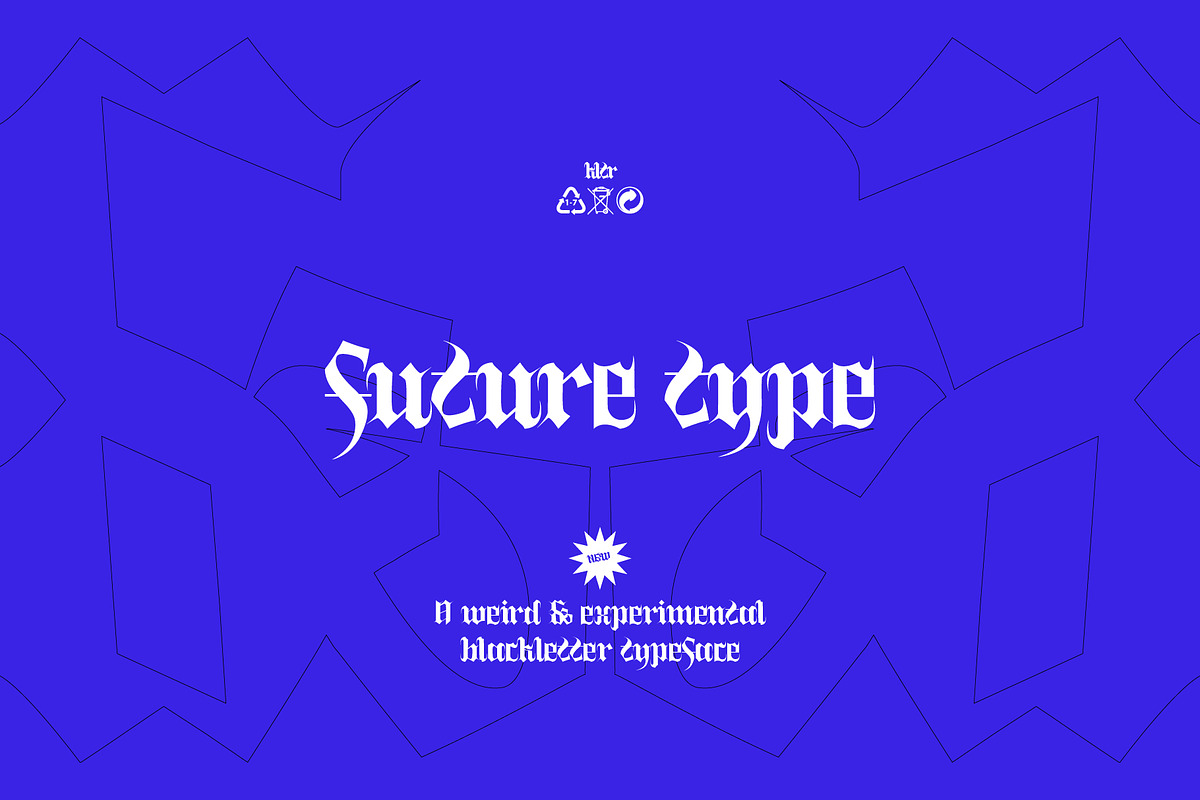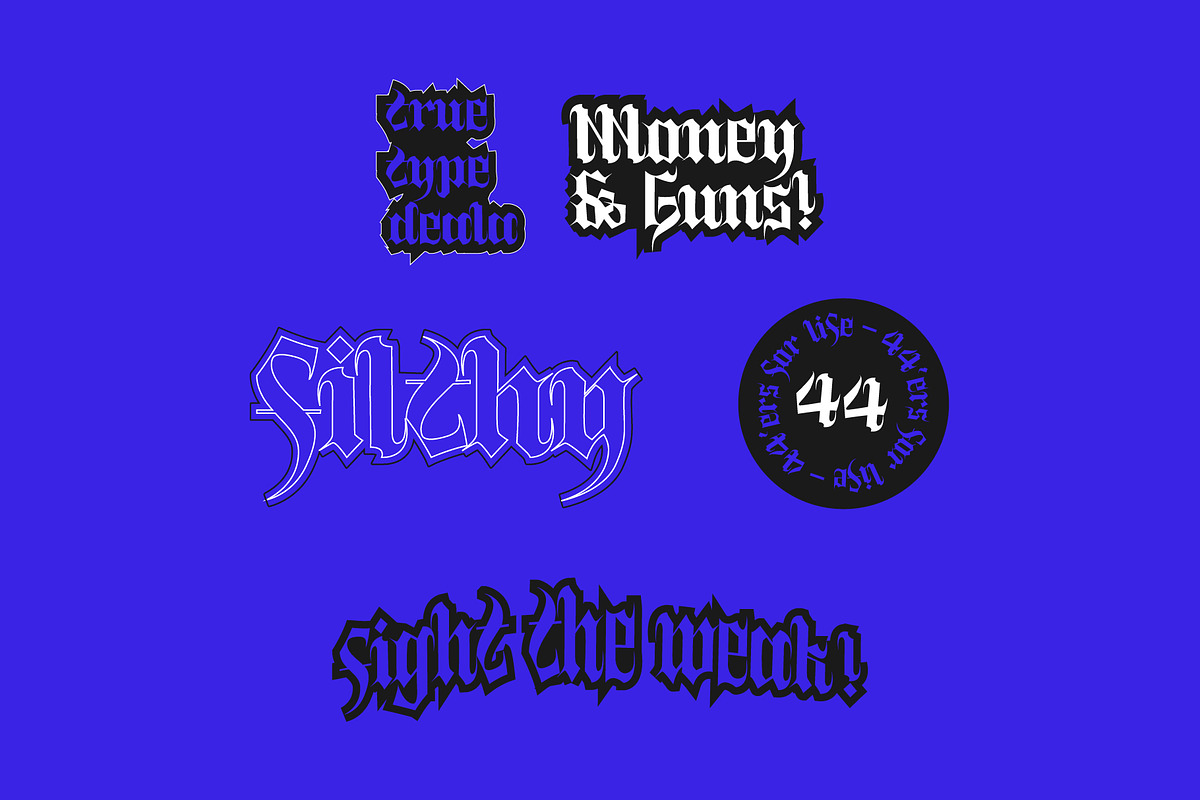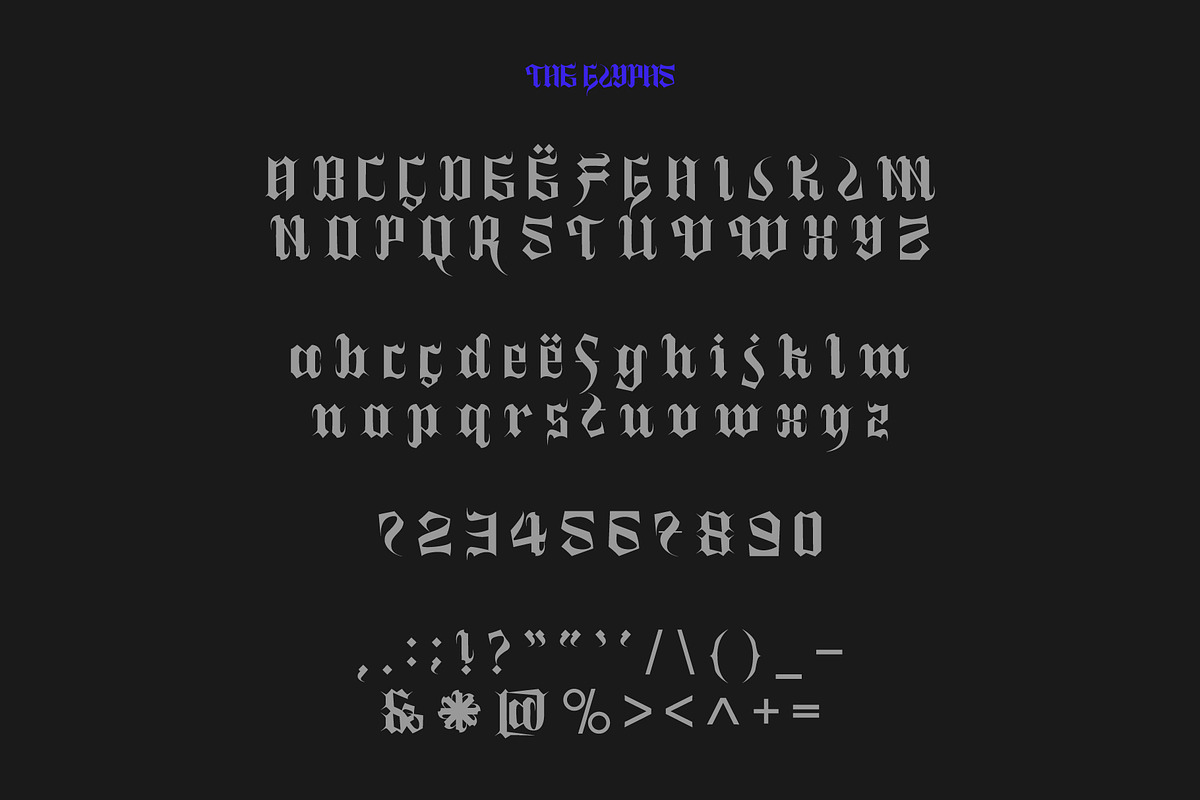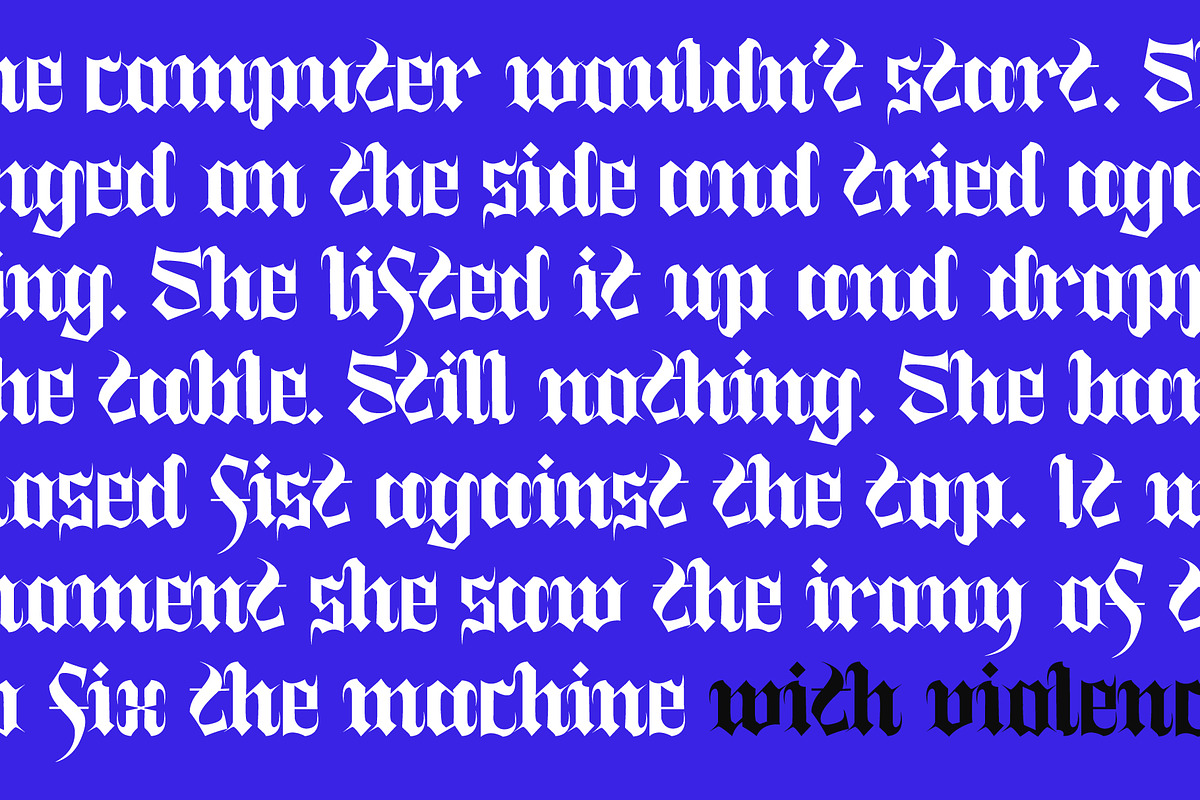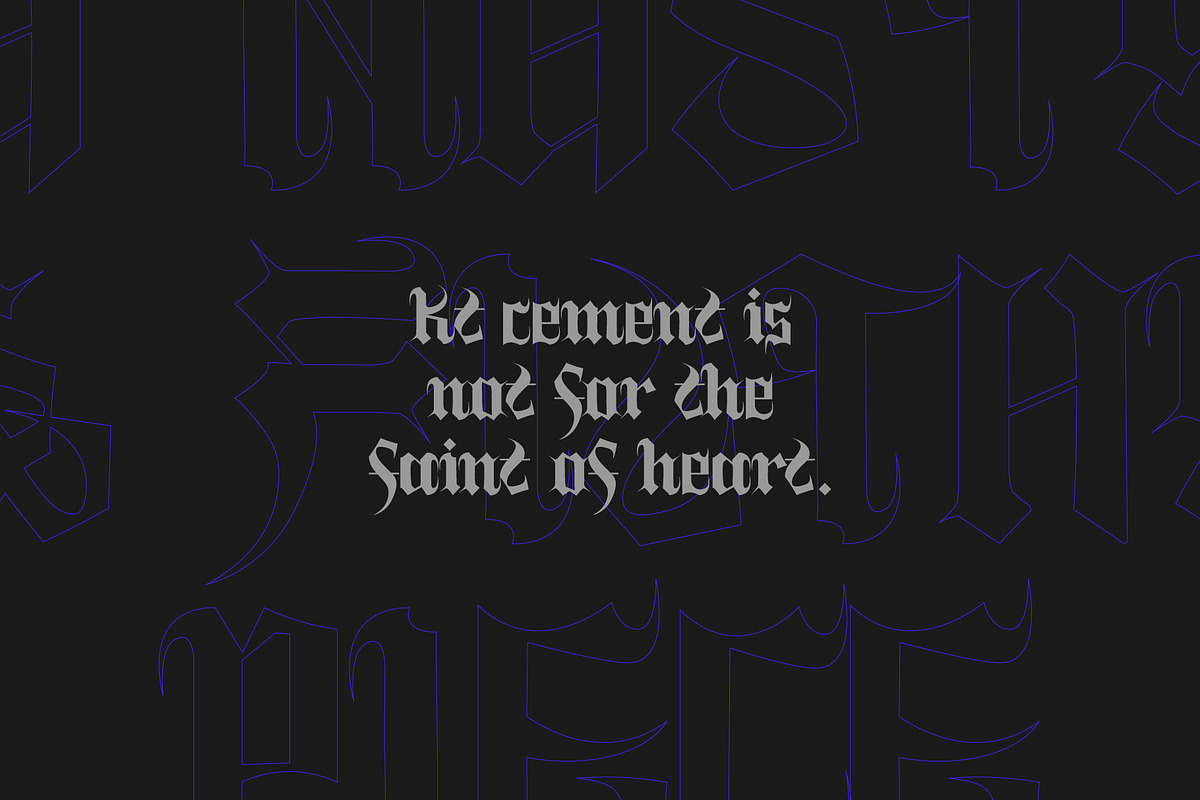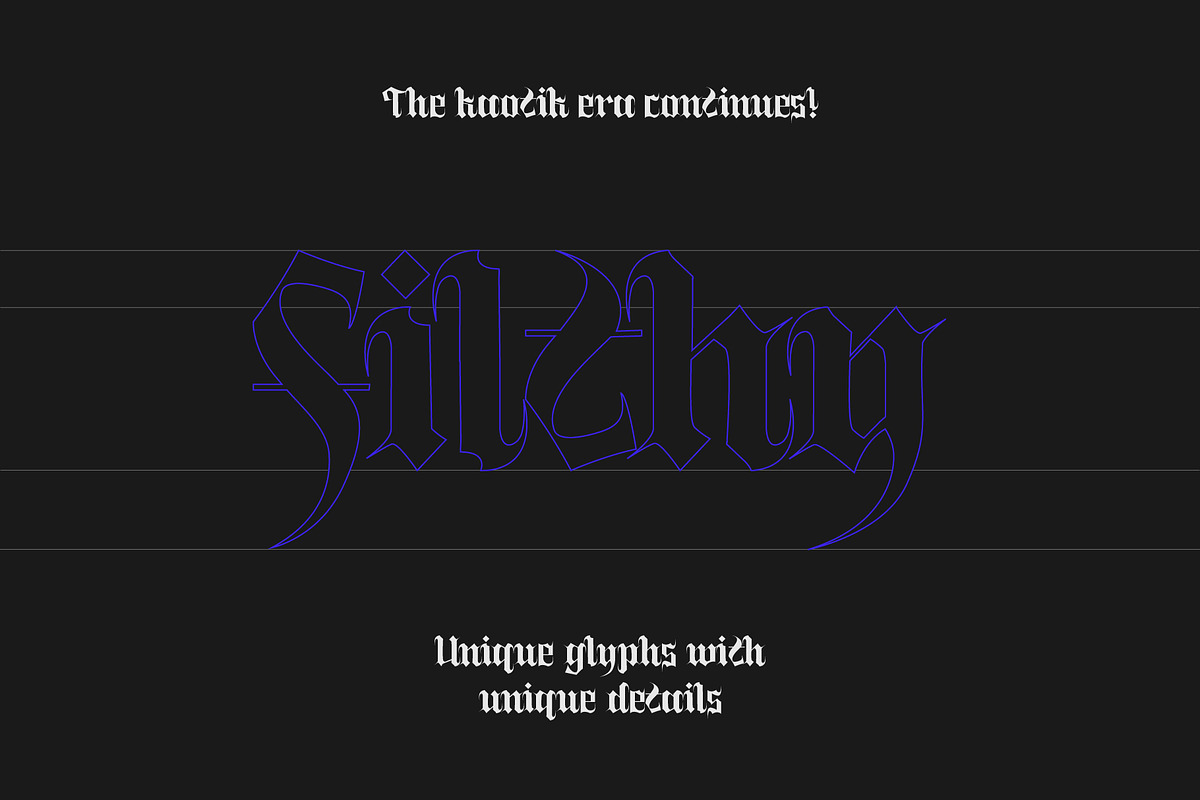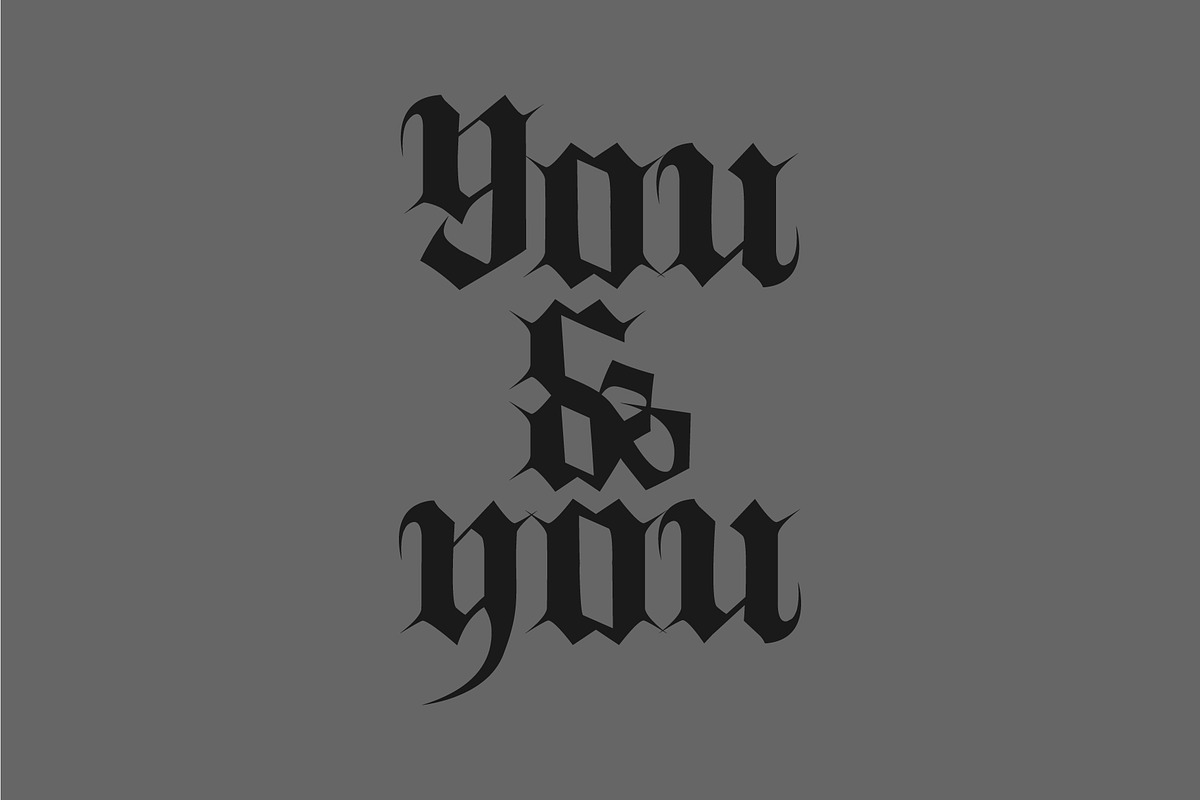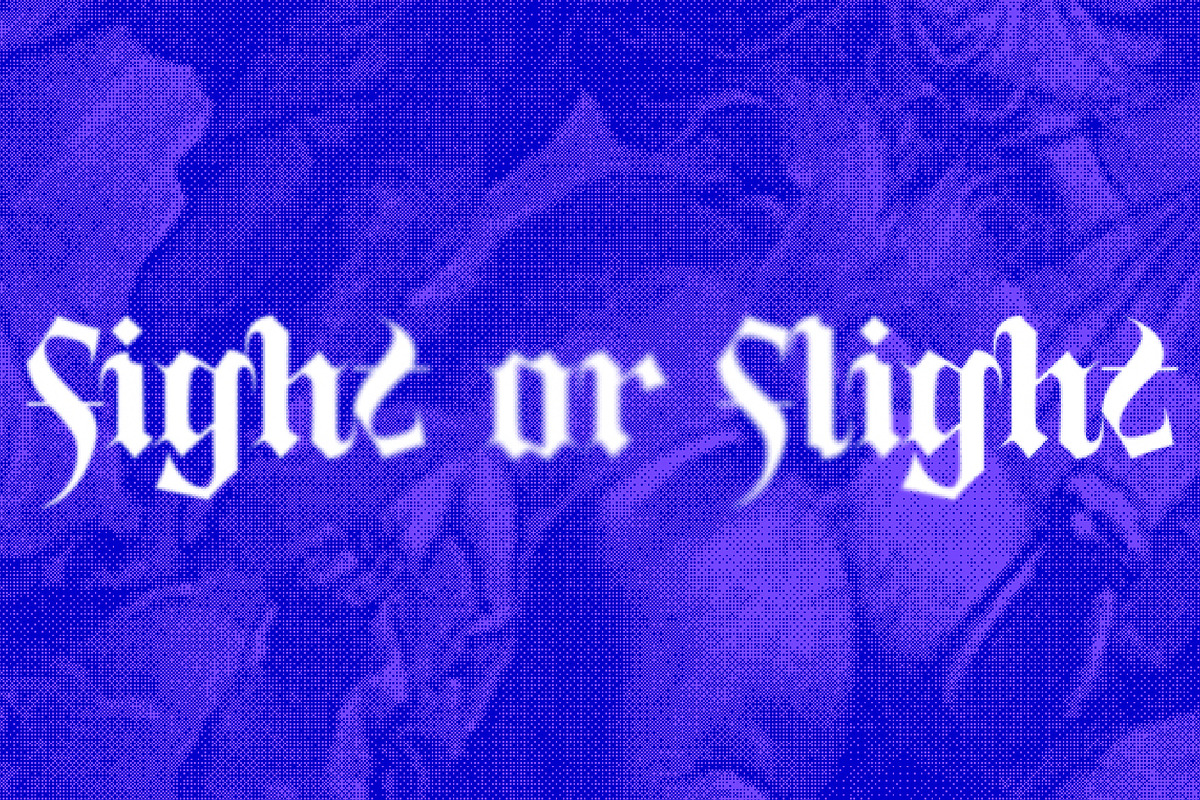
KT Cement - Experimental Blackletter
KT Cement is an experimental blackletter. It is our latest release, the type has got some very nasty & sharp curves, some unique glyphs & details and a pretty hefty amount of gothic feel to it. It is a quite unique blackletter piece.